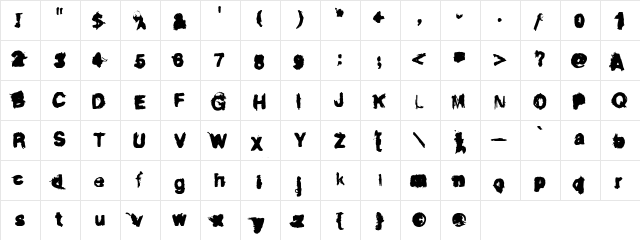
Dirty Liar Regular
Design Context for Dirty Liar Typeface
Dirty Liar is a composed and adaptable typeface that performs quietly and consistently across a wide range of design contexts.